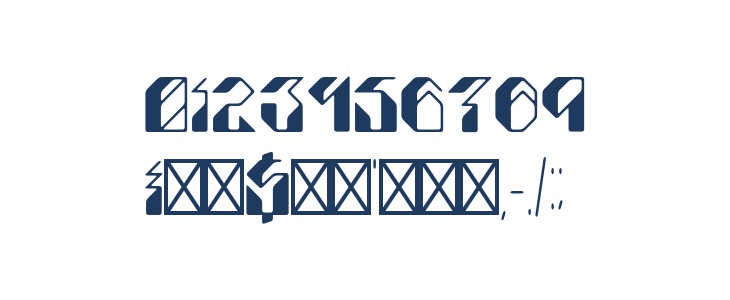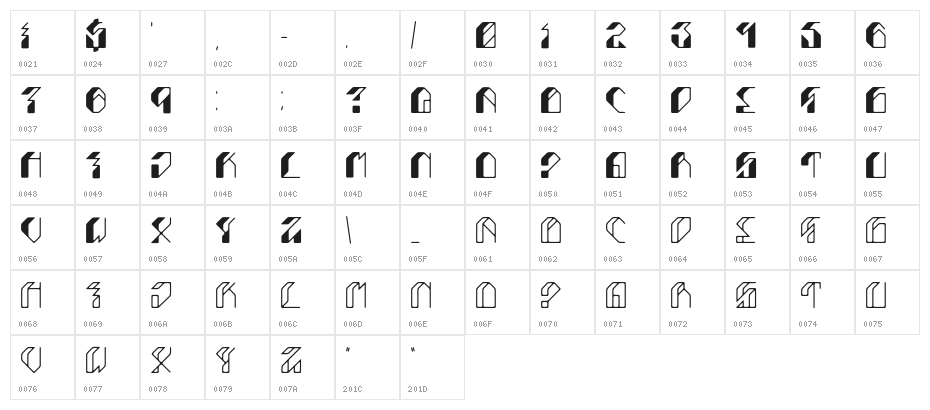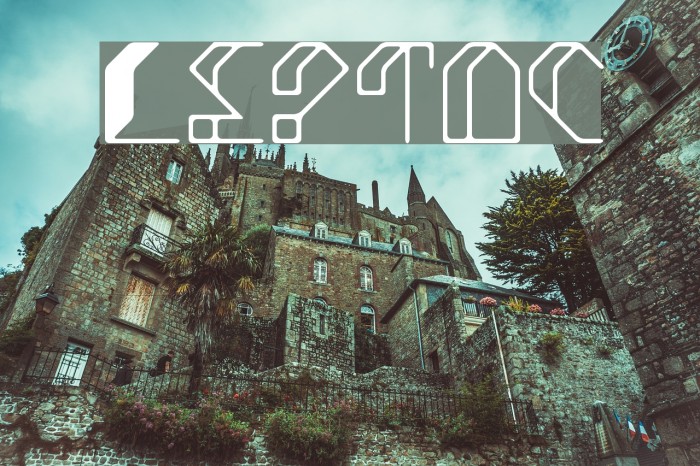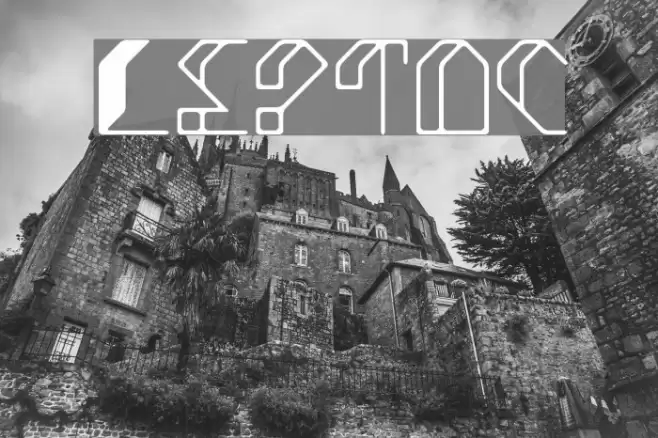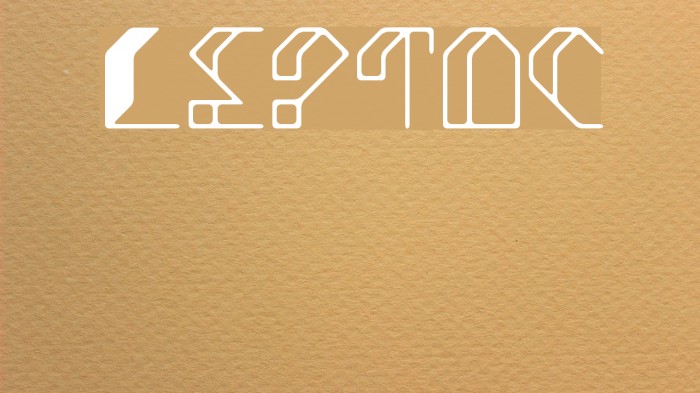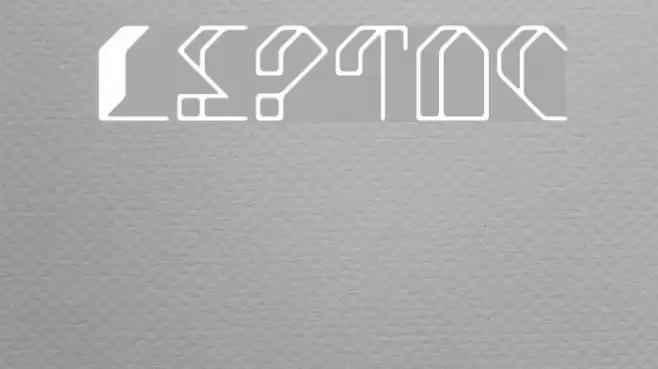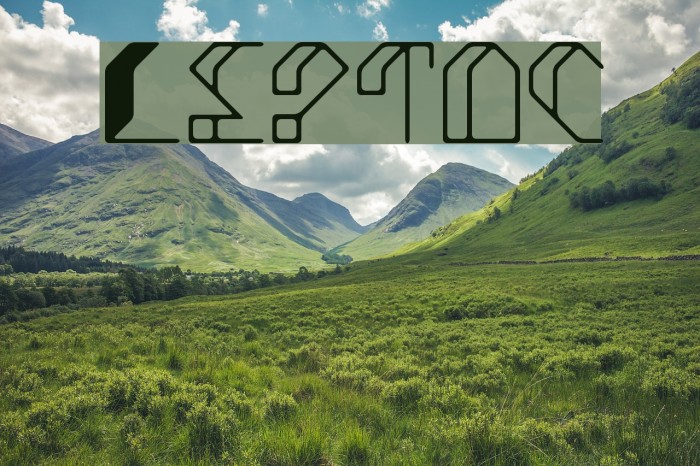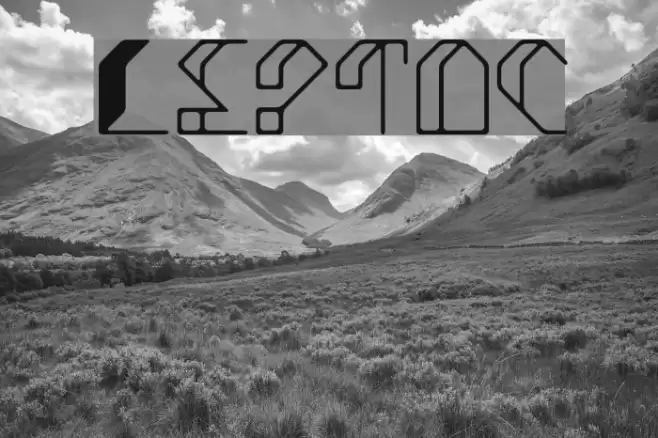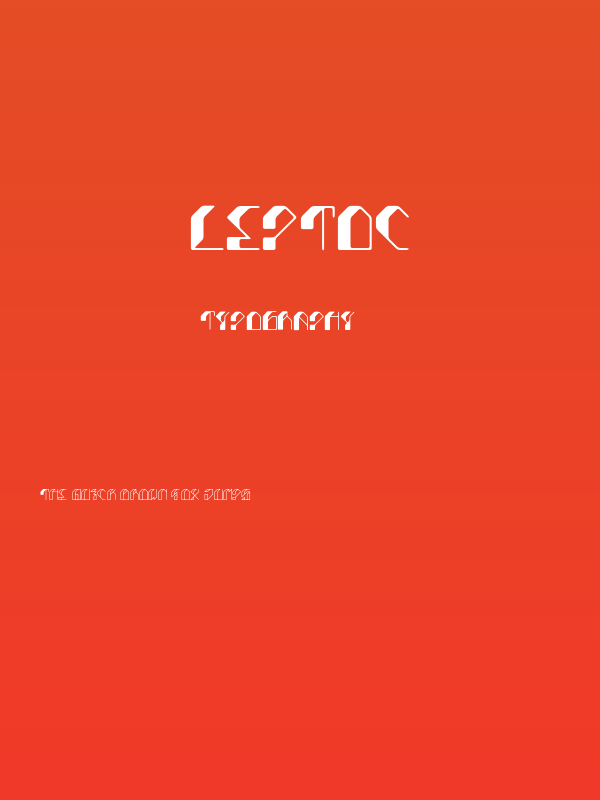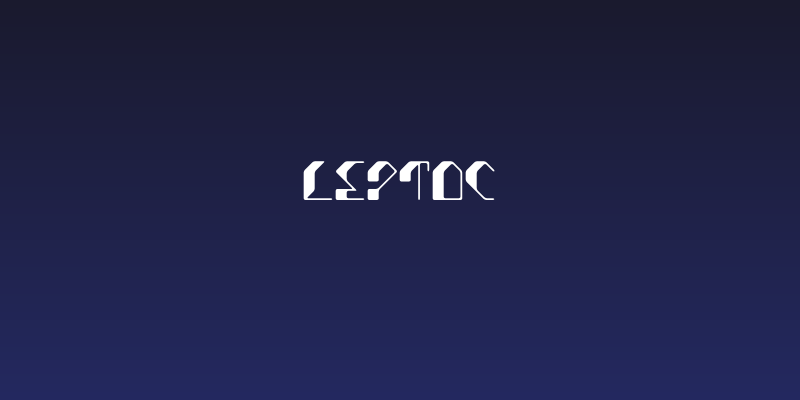
Leptoc Font
Leptoc Description
This font features a bold, geometric design with a futuristic aesthetic. The characters are constructed with sharp angles and a mix of thick and thin lines, creating a dynamic and edgy appearance. The uppercase letters are particularly striking, with a blocky, almost stencil-like quality. The lowercase letters maintain the same angular style, offering a cohesive look across the typeface. Numbers and special characters follow the same design principles, ensuring consistency. The font's unique style makes it stand out, ideal for projects that require a modern and bold statement.
| Overall Style | Futuristic, Modern |
| Proposed Projects | Ideal for sci-fi themed projects, modern branding, posters, and digital media where a bold statement is needed. |